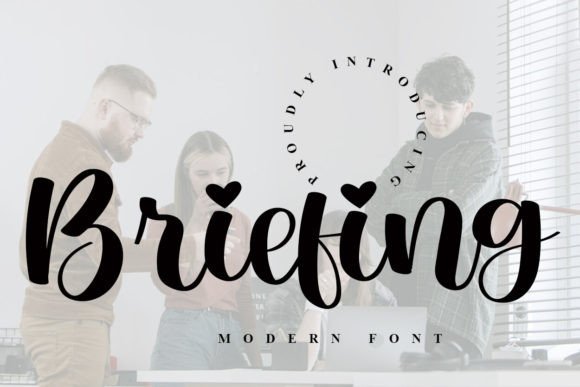
Introducing the captivating Briefing Font, a timeless handwritten masterpiece created by ABBAsalam. If you're seeking the best font for logo design, look no further! With its unique and beautiful touch, Briefing Font will breathe life into your designs, leaving a lasting impression on anyone who lays eyes on them.
Crafted with love, Briefing Font is a script font that exudes elegance and sophistication. Its handwritten style brings a sense of authenticity and personalization to your projects, setting them apart from the crowd. Each letter has been meticulously designed to showcase its individuality, allowing your creativity to flourish.
When it comes to logo design, first impressions matter. Briefing Font empowers you to create eye-catching logos that effortlessly capture attention. Its fluid strokes and graceful curves add a touch of professionalism and charm, making your brand instantly memorable. Stand out from the competition and leave a lasting imprint on your audience's minds with Briefing Font.
But Briefing Font isn't limited to just logos. This versatile font is also a perfect choice for branding and quotes. Whether you're looking to establish a strong brand identity or convey a powerful message, Briefing Font offers endless possibilities. Its timeless appeal will ensure that your designs remain relevant and impactful for years to come.
Unleash your creativity and let Briefing Font be your artistic companion. With its extensive range of characters and glyphs, you'll have the freedom to explore various design elements and create truly unique compositions. Make a statement, evoke emotions, and captivate your audience with the power of Briefing Font.
Embrace the magic of Briefing Font and elevate your designs to new heights. Its captivating beauty combined with its keyword-rich appeal ensures that your creations will not go unnoticed. Experience the joy of bringing your ideas to life and let Briefing Font be the catalyst for your success.